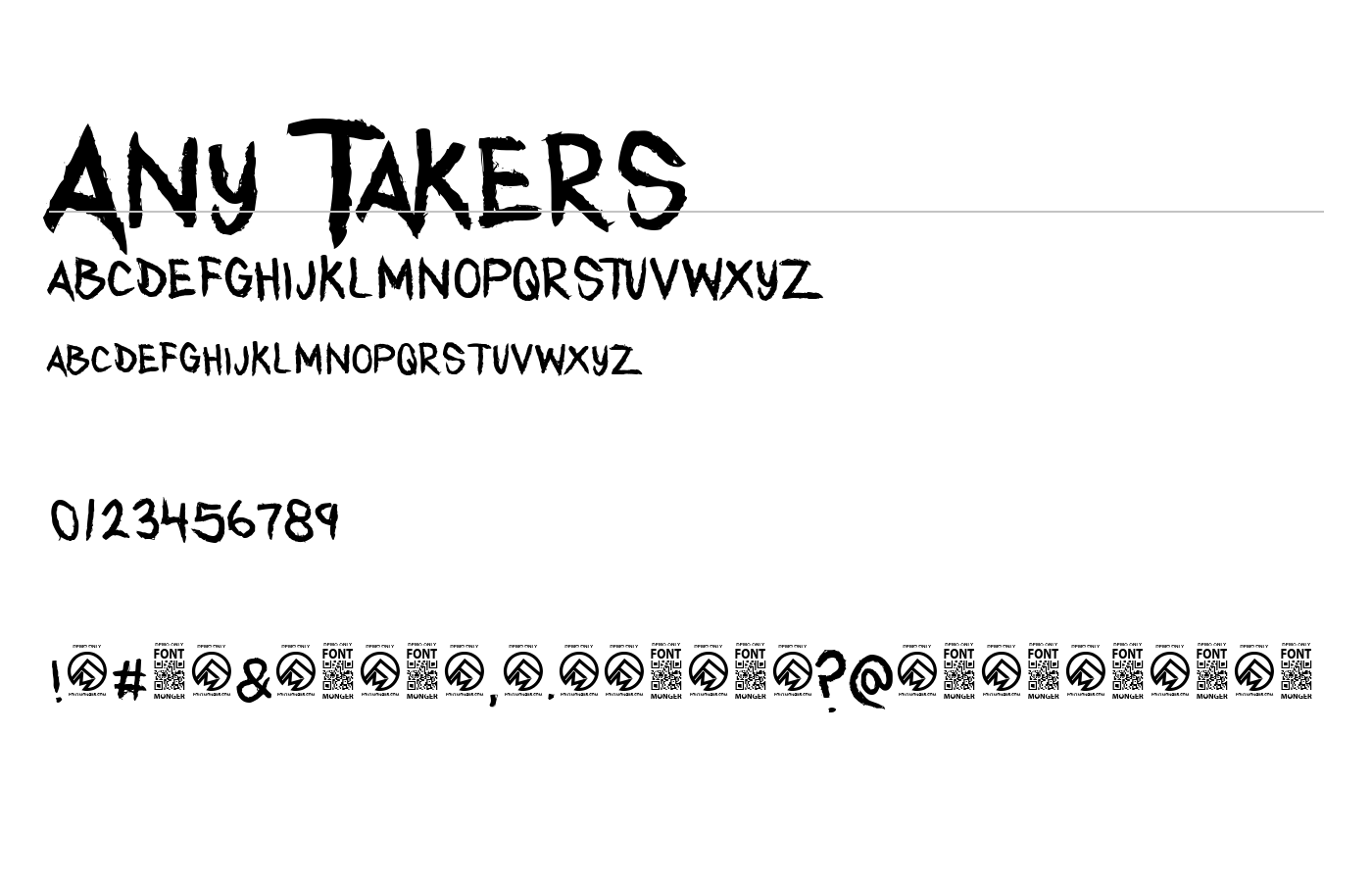
Any Takers is an expressive, hand-drawn sans serif font with a slightly rough, textured stroke that gives it a bold and edgy character. Its irregular shapes and casual style evoke a playful, energetic vibe, making it ideal for creative projects, posters, and branding that need a unique, informal touch. This font works best in headlines or display text where its dynamic personality can stand out and engage viewers.
Any Takers Font
About Any Takers Font
| Font family | Any Takers Font |
| Designer | Font Monger |